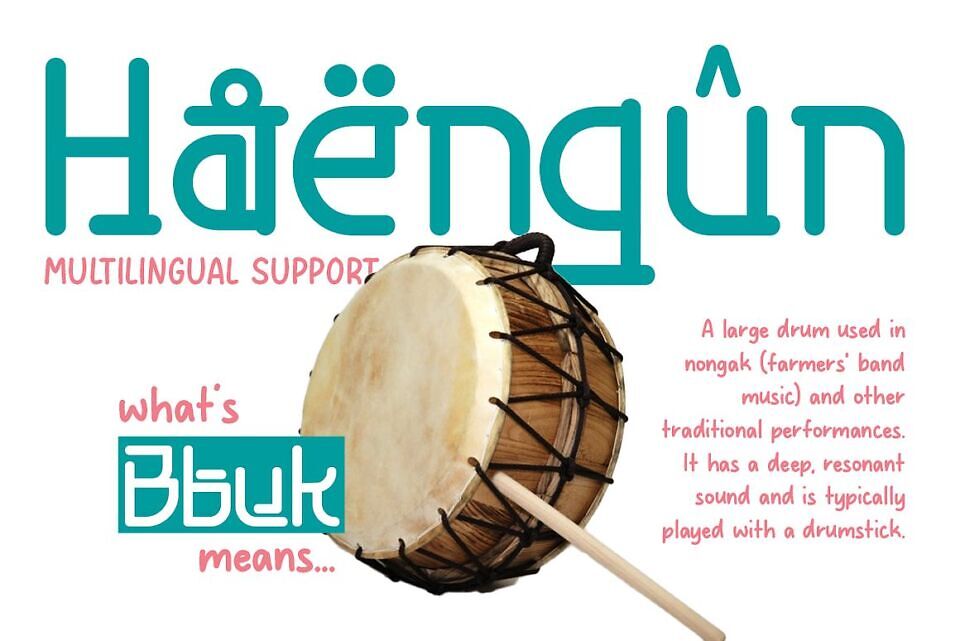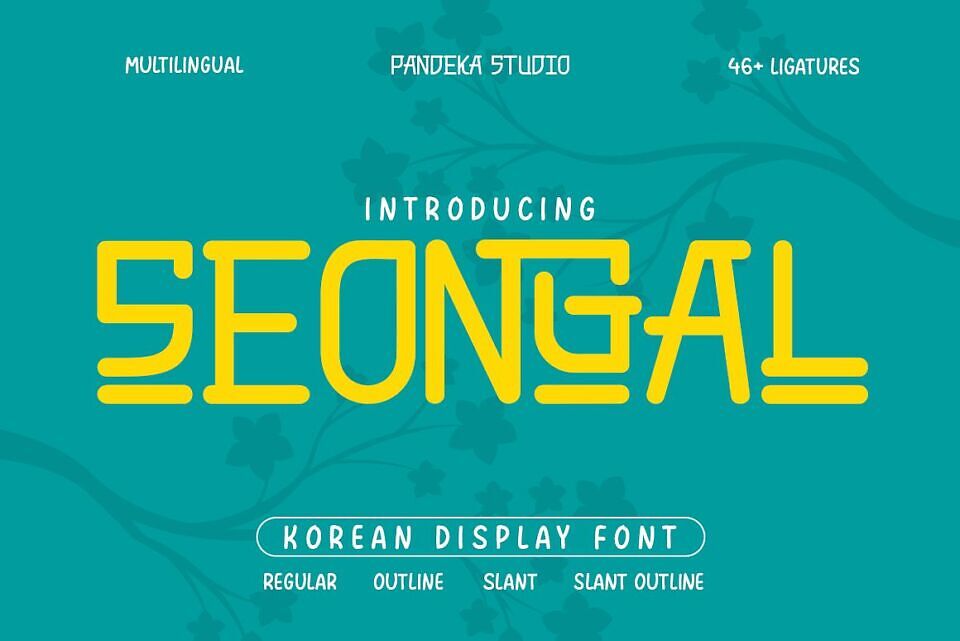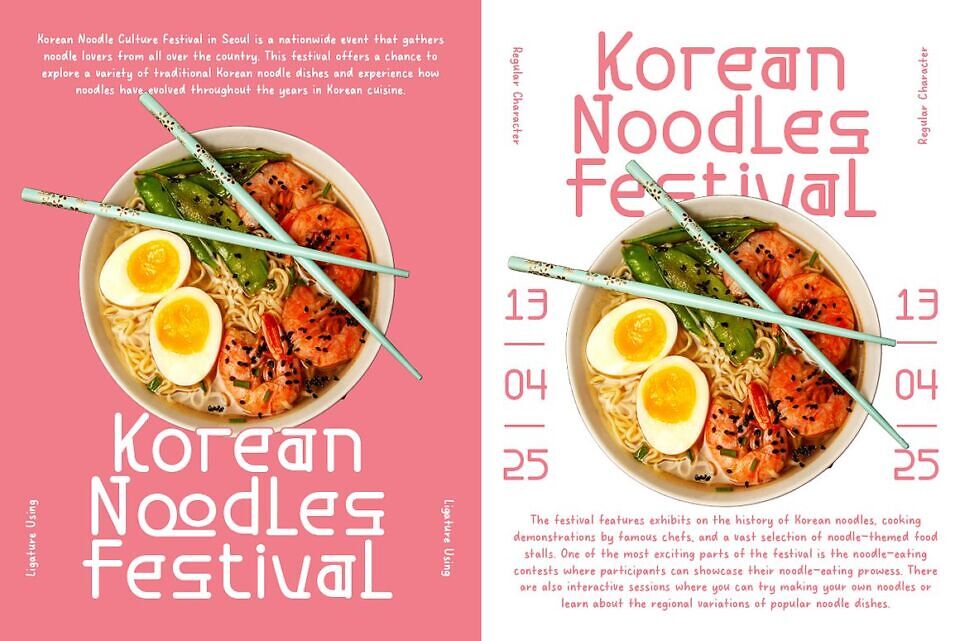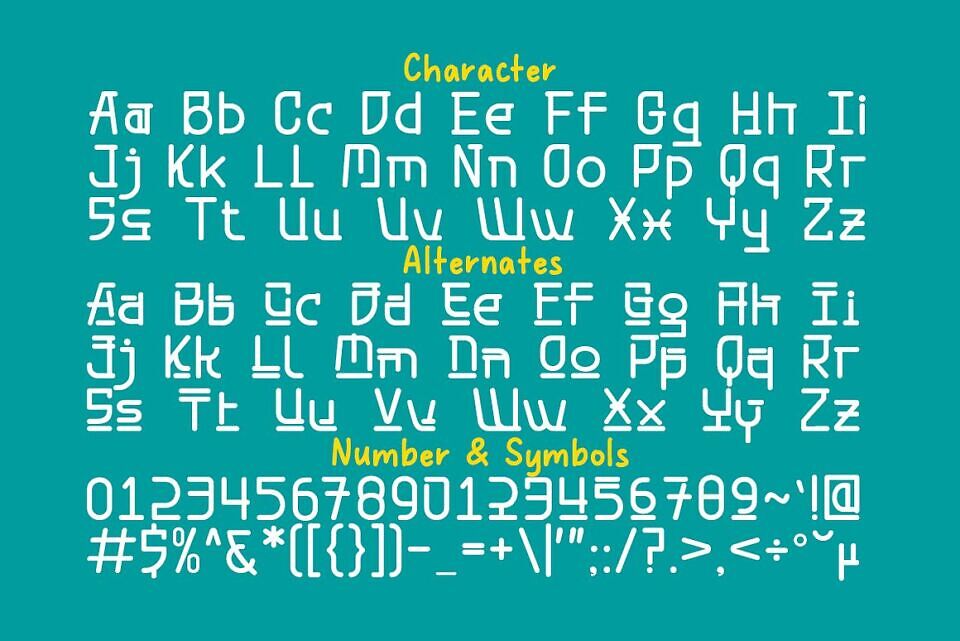
Seongal is a Korean display typeface that blends bold typography with a traditional aesthetic and modern design. Its elegant curves reflect cultural style while maintaining unique lettering for a distinctive look.
Available in Regular, Outline, Slant, and Slant Outline, Seongal is perfect for branding, editorial design, cultural events, packaging, signage, and logo typography, adding a timeless and refined touch to any project.